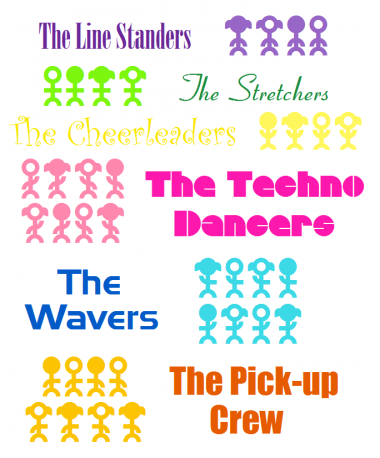
• PictoPeeps love to play! :P These are just simple stick figures doing various poses. Made by using my ever favorite macaroni brick lol! When using, remember creativity makes the best of everything. ;P --The large solid brick at the end of the glyphs is the fix thought up by CMunk to keep the tops of the PictoPeeps' heads from being cut off during the downloading process. It is not a letter (just a clarification). The PictoPeeps thank you sir.--
Okay quick question for everyone. Is anyone else having problems when downloading this?
@xenophilius: Lol I've actually done it before using just powerpoint and paint. I could do that now..but somethings up when I try to download this..its cutting the top bit of all their heads off! Not a very good thing and idk why its doing it..
Will somebody please please please tell me they are having the same problem as me when downloading this? I'm beginning to think I'm going crazy...that's what I get for editing and downloading 9 times with the same result...
I see the cut off heads too. Maybe it has something to do with the filters. Try to make a character, that is one brick higher than the others.
Thank you so much CMunk! I really was beginning to think it was just me. But I did try moving the characters down, up, and everything...it helps with the uppercase (open circle) glyphs but not the lowercase (closed circle) ones...I just don't understand...grr...
Hey, Crispycracker, I think I found the solution to your problem. It's the same as what I tried to explain earlier, but now that I know it works, I'm going to explain it better:
Aha! It worked! I understand what it was doing now. I don't know why it was doing it in the first place, but it's working now so I'm happy lol. Thanks so much CMunk for your help! Sample pic of some sort should be up soon.
@CMunk: I've been trying to make it upload as a png but for some reason its not letting me. I just have all sorts of problems don't I?
Comment by Ken Bruce (crispycraker) 19th april 2011
I thought I'd tell a little story with em lol
Comment by Ken Bruce (crispycraker) 19th april 2011
Ah nevermind, I got it. It must have been the computer I was on earlier.
Shake, shake, shake...
shake, shake, shake...
shake Your Booty!
Wow! How you make so lovely things like this and put here?
That's a story...? It DOES bring the PictoPeeps to life, though, but stories consist of a PLOT. Good drawing though.